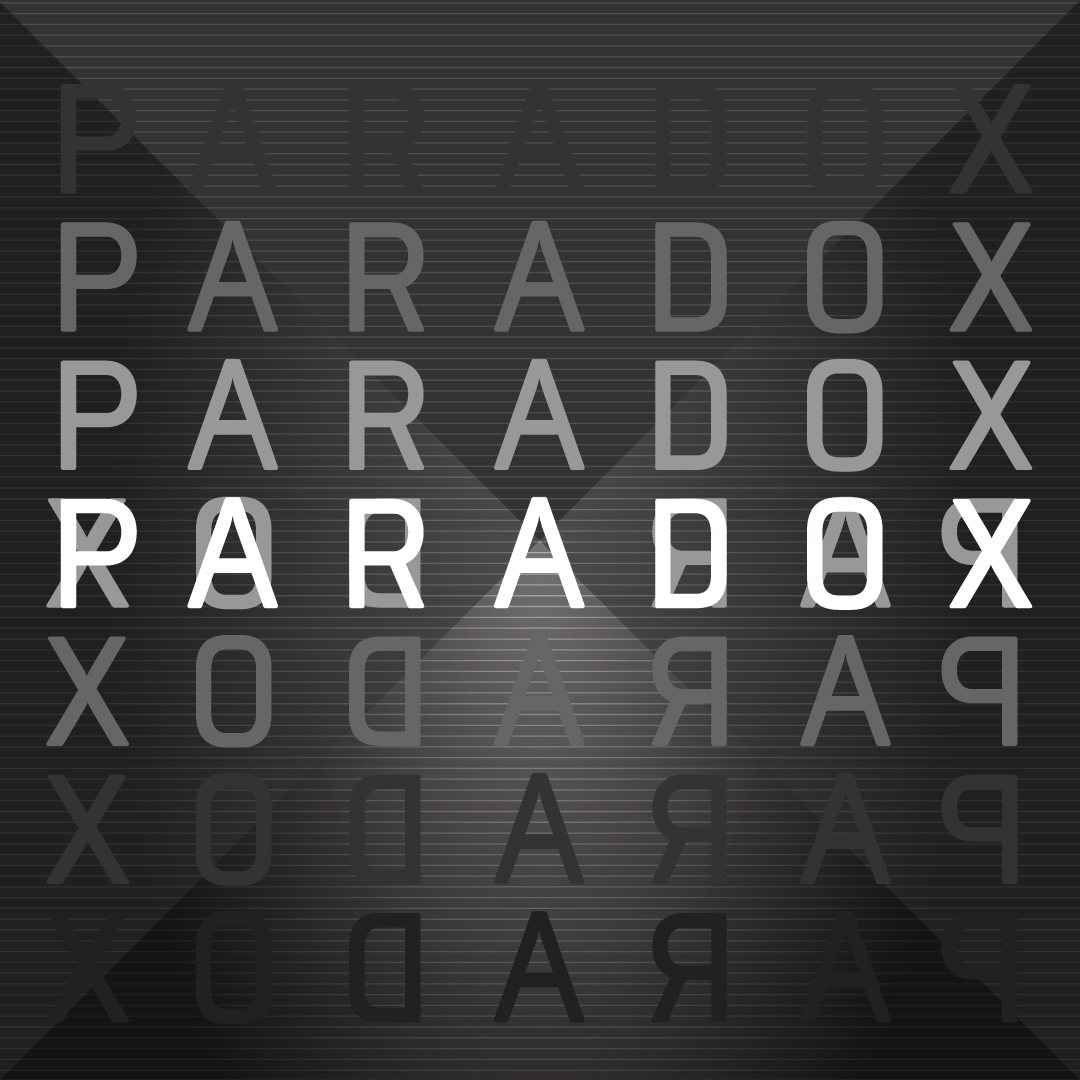
Quara™
Reduced letterforms
approved for human use.
Designed by Delve Withrington
The square-ish form and slightly rounded terminals of Quara takes its cues from avant-garde technology and new gadget lust. It began as a design for a custom typeface project. Ultimately the client chose an altogether different design but designer Delve Withrington decided the merit of Quara warranted further development and saw it through to completion.
The omission of portions of strokes near joins was one of several design techniques used in developing glyphs for the purpose of Optical Character Recognition (OCR) by early computers. For the design of Quara, this simplification of form is as much an aesthetic feature as it is evidence of the increasing acceptance of “unconventional” letterforms in the ongoing development of methods to construct visual language.
The compactness of Quara makes it quite useful for headlines and subheads on websites, in games, magazines, brochures, and posters. Quara also maintains a versatility that allows it to perform well for shorter passages at normal text sizes.
Additional features include: Kerning, Fractions, Standard Ligatures, and Ordinals.